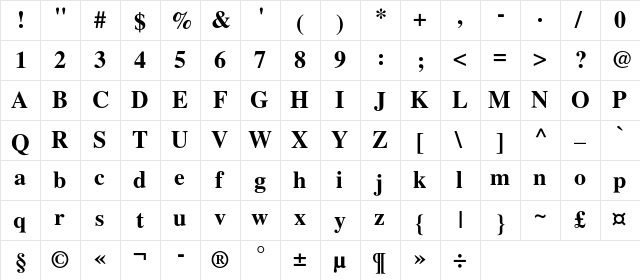
AGTeutonicaC Bold
Design Context for AGTeutonicaC Typeface
AGTeutonicaC is a composed and adaptable typeface that performs quietly and consistently across a wide range of design contexts. The heavy weight commands attention and anchors typographic hierarchies.
Pro Tip: Pair AGTeutonicaC with a font of contrasting weight or personality to build a more expressive typographic hierarchy.